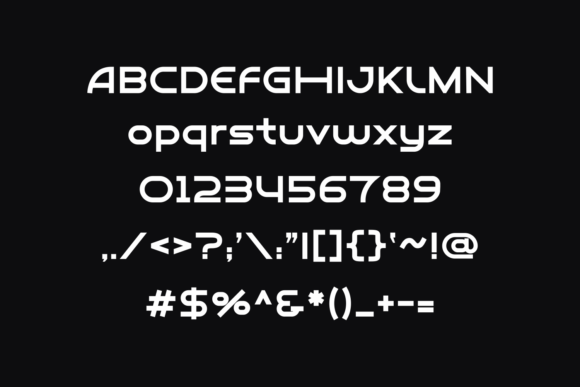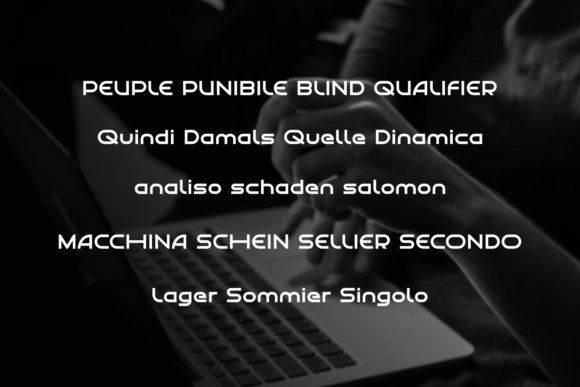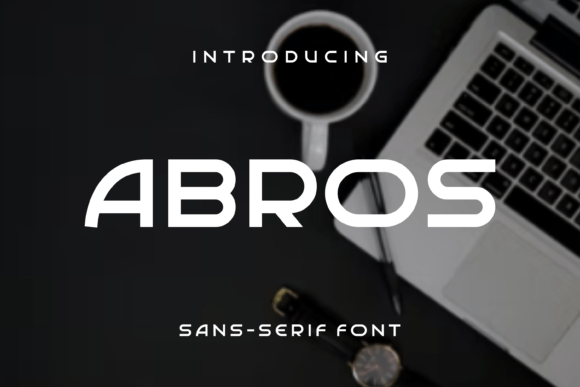
Discover the Perfect Canvas for Your Creativity
Imagine you’re brainstorming a new project, and suddenly, the perfect font pops into your head. It’s clean, modern, and effortlessly cool – the kind of font that says, “I’m a creative force to be reckoned with!” For designers, finding that elusive perfect font can make all the difference in bringing a project to life. And that’s where Abros Font comes in – a fun and versatile sans serif font that’s ready to elevate your next big idea.
Abros Font is the ultimate go-to font for any project, from sleek logos to engaging blog posts. Its adaptability makes it a valuable asset for designers, allowing them to express themselves freely without worrying about the font getting in the way. Whether you’re working on a personal or professional project, Abros Font is the perfect companion to bring your vision to life.
Abros Font Key Features
- Font Family: Abros is a sans-serif font family, ideal for digital and print applications.
- Character Set: Supports a wide range of languages, including Latin, Cyrillic, and Greek scripts, making it suitable for global applications.
- Unique Characteristics: Abros features a clean and modern design, with a focus on readability and versatility, making it suitable for a wide range of applications, from corporate branding to digital interfaces.
- Font Styles: Includes a range of font styles, including Regular, Bold, Italic, and Bold Italic, providing flexibility for designers to create visually appealing and consistent typography.
Abros Font Review
Overall, I’d say that Abros Font is a decent option for designers looking for a clean and modern sans-serif font. Here are some of its strengths: ✨
- Neutral tone: Abros Font has a very neutral tone that makes it suitable for a wide range of projects and audiences.
- Legibility: The font is highly legible, even at small font sizes, making it perfect for body text and other content-heavy projects.
- Customizability: Abros Font comes in multiple weights and styles, giving designers the flexibility to customize the font to fit their project’s needs.
- Lack of personality: While Abros Font is clean and modern, it can also feel a bit generic and lacks the unique personality that some designers might be looking for.
- Not ideal for display text: Abros Font is best suited for body text and other content-heavy projects, but it may not be the best choice for display text or headlines due to its lack of flair.
Overall, Abros Font is a solid choice for designers who want a clean and modern sans-serif font, but it may not be the best fit for every project. With some careful consideration and customization, it can be a valuable addition to any designer’s toolkit.
Tips for Getting the Most Out of Abros Font
Abros Font is best used for titles, headings, and other display text. It’s a decorative font, so use it sparingly to add visual interest to your design. Experiment with different font sizes and styles to find the perfect balance for your project.
Abros Font is ideal for:
- Event promotions and advertising
- Graphic design and digital art